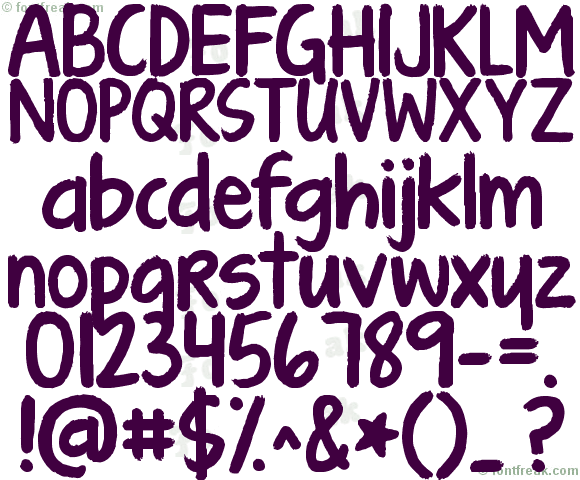
KG Turning Tables
About KG Turning Tables
KG Turning Tables is a charming handwritten font designed by Kimberly Geswein. This font falls into the category of script typefaces, characterized by its playful and informal style. The strokes exhibit a moderate weight with a slightly uneven line quality, giving it a natural, organic feel. The letterforms feature a relaxed spacing that enhances legibility while maintaining a friendly and approachable appearance. Its rounded edges and whimsical flourishes add a decorative touch, making it visually appealing for a variety of applications.
This versatile font is perfect for multiple use cases, including wedding invitations that require a personal touch, children's book covers that benefit from its playful nature, trendy café menus that aim to attract a youthful audience, and social media graphics designed to captivate followers. Additionally, it works well for DIY projects and craft materials where a handwritten aesthetic is desired. The target audience for KG Turning Tables includes graphic designers looking to add a unique script to their projects, small business owners wanting to create an inviting brand image, and content creators aiming to engage their audience with a warm and friendly tone.
What sets KG Turning Tables apart is its unique blend of informality and elegance. This font captures the essence of handwritten expression while remaining versatile enough for various design contexts. The availability of the KG Turning Tables font free download makes it accessible for anyone seeking to elevate their creative projects. Whether you're designing a heartfelt invitation or a trendy advertisement, this font is sure to leave a lasting impression and resonate with your audience.